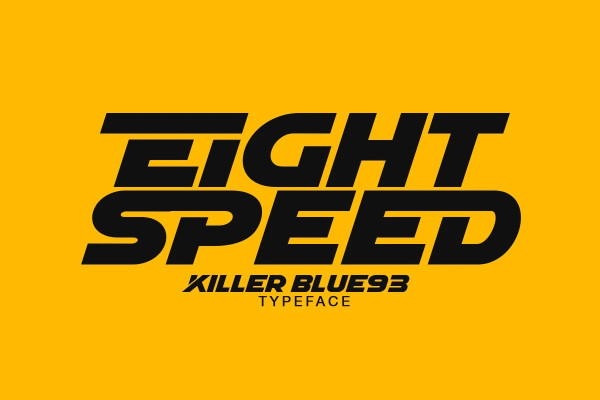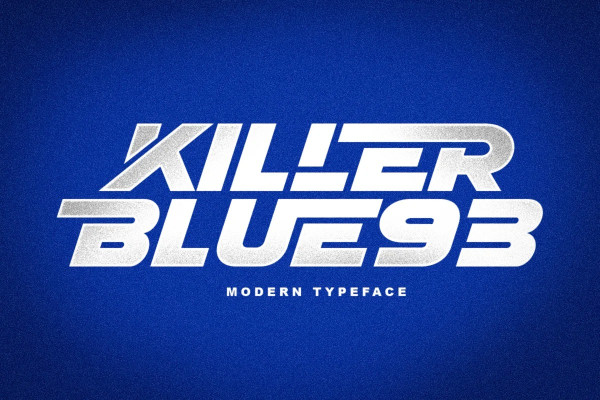
Killer Blue93 Font
Killer Blue93 Font, it will look really cool, and this font is very easy to use at an affordable price, if you want to write KILLER BLUE93 try by typing KilLER BluE93, then the effect that appears will be like a ligature.
Perfectly fit for branding, logo, wedding things, greeting cards, fashion, lookbook, marketing promotion, anytime you want to look fancy elegant but still casual.